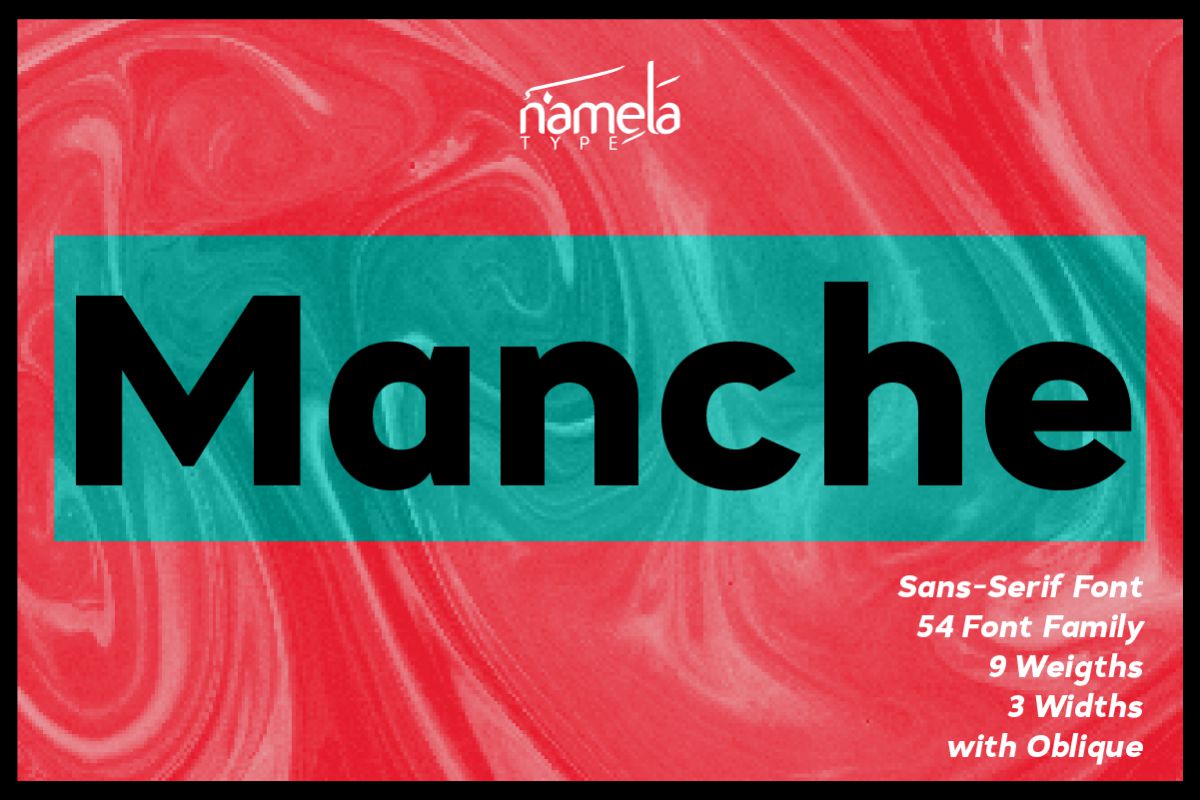
Manche ExtraBold
Manche Font - A Geometric Sans-Serif Typeface for Web & ePub In typography, restraint is a discipline. The ability to design a sans serif that communicates clearly, performs consistently, and maintains visual balance without unnecessary ornamentation defines truly refined work. Manche Geometric Sans-Serif Font embodies that philosophy. Built on the principles of geometric construction, it offers clarity, versatility, and a professional tone suited for everything from branding and UI design to e